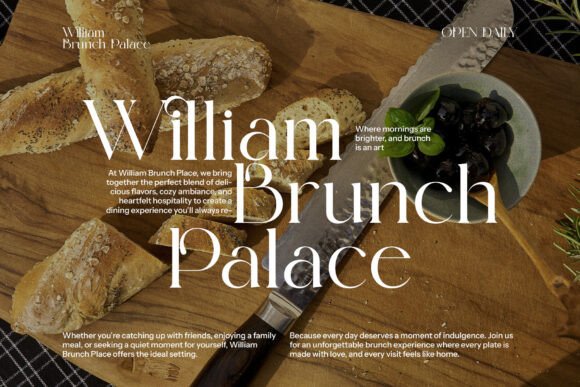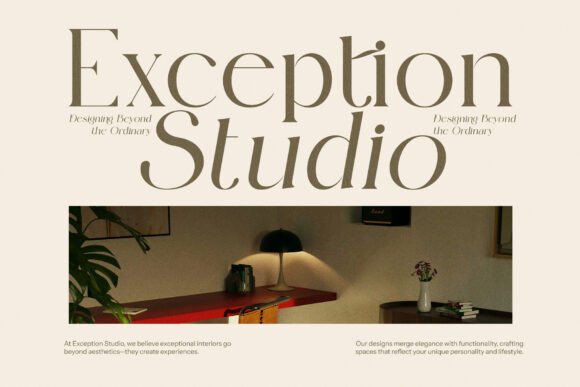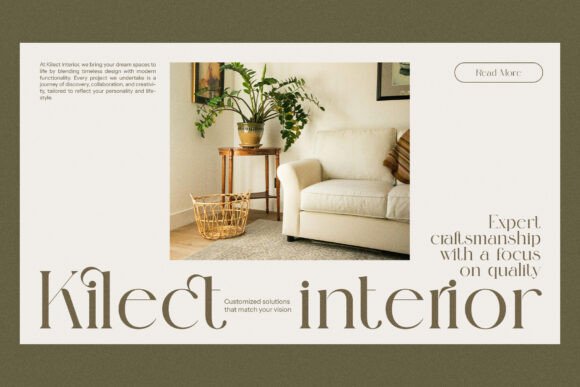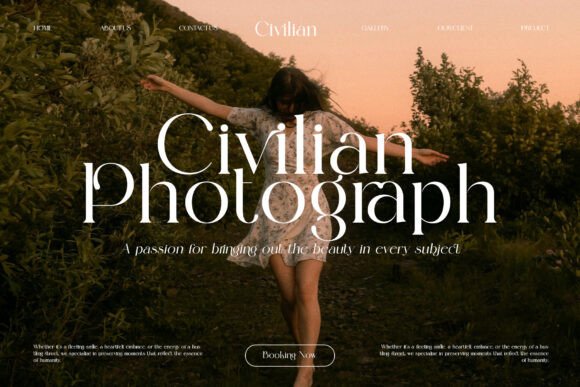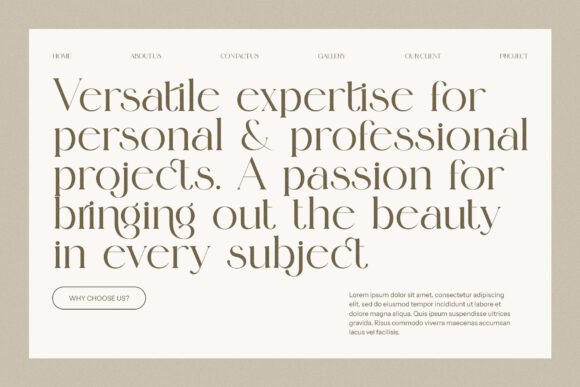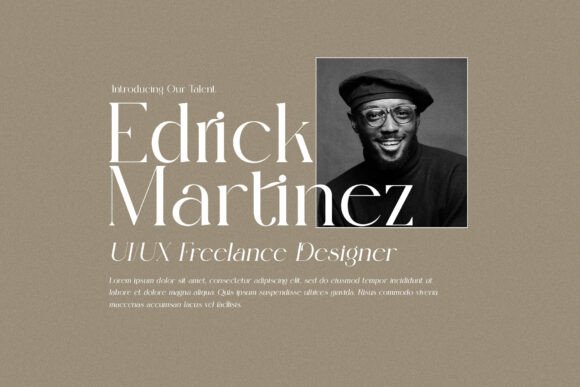
Discover the Elegance of Dringk Stylish Serif Font: Elevate Your Designs with Sophistication
In the world of typography, a font can make all the difference in the success of a design project. For designers and crafters seeking a typeface that embodies both elegance and uniqueness, Dringk Stylish Serif Font is an exceptional choice. This sophisticated and modern serif font is crafted with meticulous attention to detail, transforming traditional serif elements into a refined and innovative design.
What Makes Dringk Stylish Serif Font Stand Out?
Dringk Stylish Serif Font boasts beautifully designed ligatures and alternate characters, setting it apart from more conventional typefaces. The harmonious blending of several letters into distinctive shapes creates an unforgettable visual experience. This unique feature not only adds an element of sophistication to any design but also enhances readability, making it perfect for a wide range of creative projects.
Ideal Applications for Dringk Stylish Serif Font
The versatility of Dringk Stylish Serif Font makes it an excellent choice for various applications, including:
- Branding and Logos: Create a lasting impression with a font that exudes elegance and professionalism.
- Advertisements: Stand out in both digital and print media with a typeface that captures attention.
- Magazine Layouts: Add a touch of sophistication to your editorial designs.
- Product Packaging: Elevate your product labels with a refined and modern aesthetic.
- Boutique Signage: Create eye-catching signage that reflects your brand’s luxury and style.
- Food Branding: Add a touch of elegance to your food packaging and branding.
- Websites: Enhance your website’s typography with a sleek and contemporary font.
Why Choose Dringk Stylish Serif Font?
Dringk Stylish Serif Font’s sleek, contemporary aesthetic pairs perfectly with modern design trends, while its classic serif structure ensures readability and sophistication. This font is ideal for designers and crafters who want to:
- Create an eye-catching logo that leaves a lasting impression.
- Enhance a website’s typography with a refined and modern typeface.
- Design high-end product labels that reflect luxury and sophistication.
Key Features of Dringk Stylish Serif Font
Dringk Stylish Serif Font offers a range of features that make it an exceptional choice for designers and crafters, including:
- Beautifully designed ligatures: Add an element of sophistication to your designs.
- Alternate characters: Enhance readability and create a unique visual experience.
- Refined and modern aesthetic: Perfect for designs that require a touch of elegance.
- Classic serif structure: Ensures readability and sophistication.
Dringk Stylish Serif Font is an exceptional choice for designers and crafters seeking a sophisticated and modern typeface that embodies elegance and uniqueness. With its beautifully designed ligatures, alternate characters, and refined aesthetic, this font is perfect for a wide range of creative projects. Whether you’re creating a logo, enhancing a website’s typography, or designing a high-end product label, Dringk Stylish Serif Font is sure to elevate your designs with sophistication.
Discover the elegance of Dringk Stylish Serif Font and take your designs to the next level.